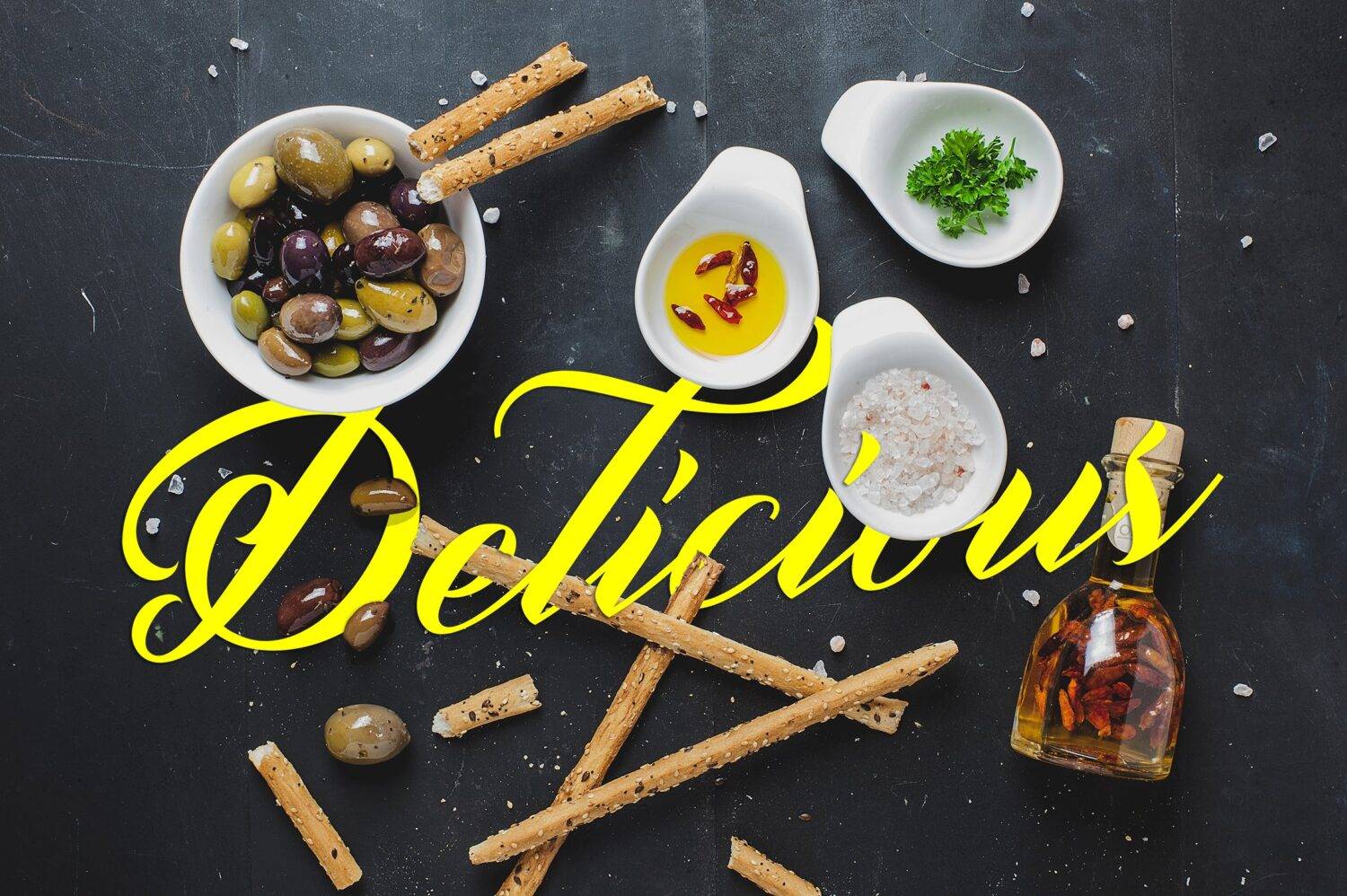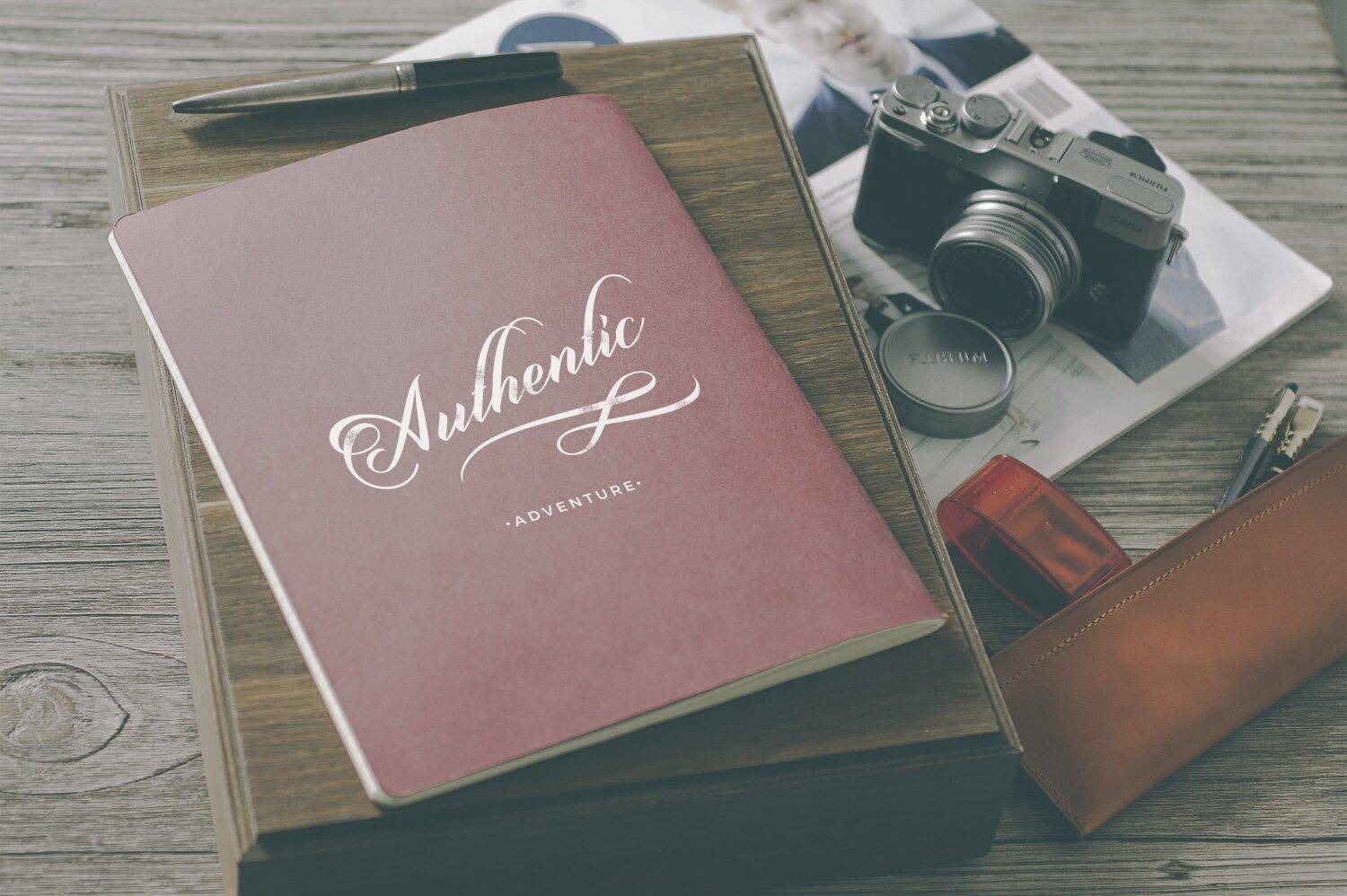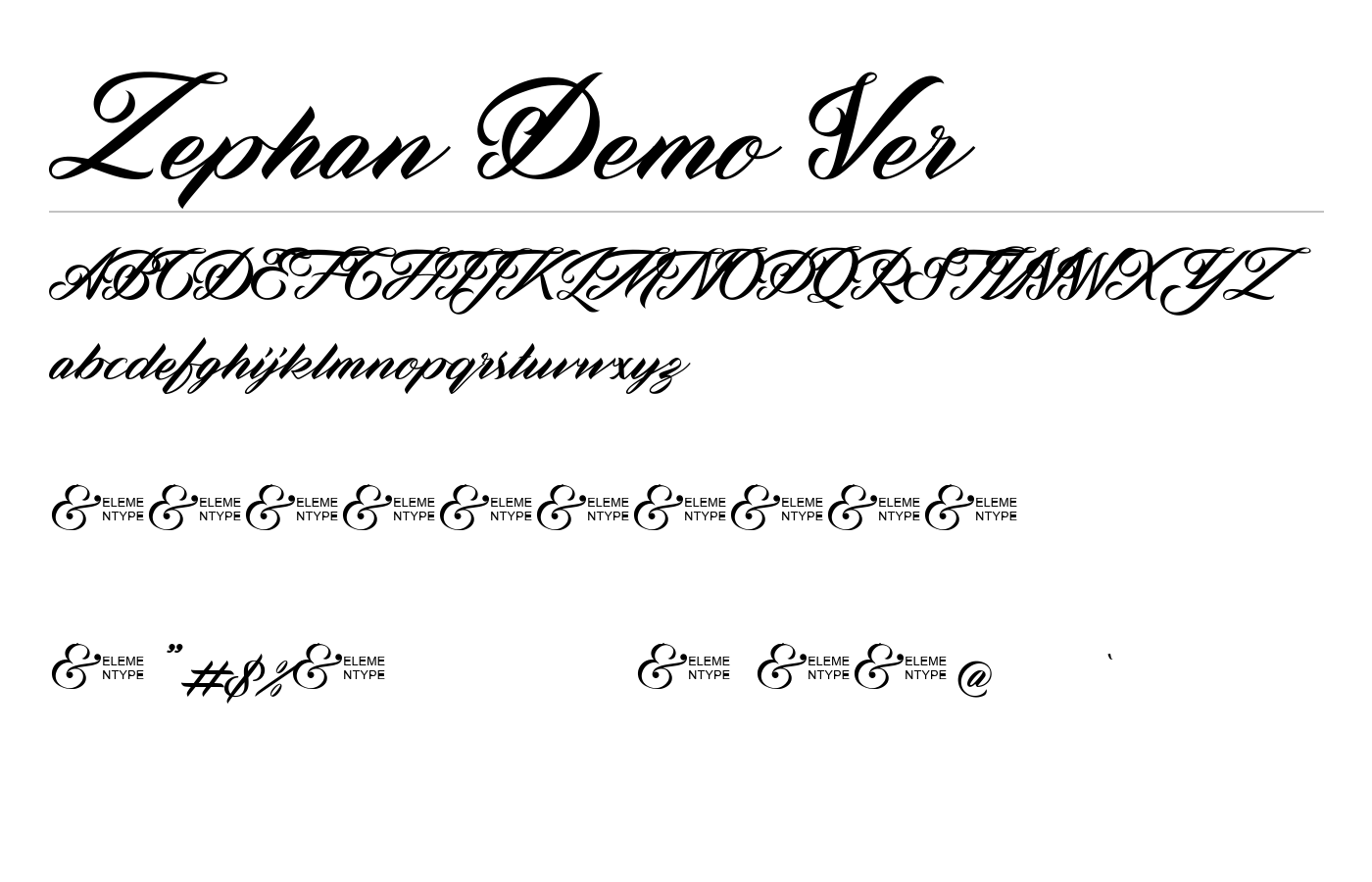
Zephan Modern Script Demo is an elegant, flowing script font characterized by its graceful, high-contrast strokes and delicate swashes, offering a refined and classic handwritten feel. Its stylish uppercase letters and smoothly connected lowercase forms make it perfect for luxury branding, wedding invitations, and sophisticated editorial designs where a sense of elegance and personality is desired. This font works beautifully in logos and headlines, bringing a timeless, artistic touch to your creative projects.
Zephan Modern Script Demo Font
About Zephan Modern Script Demo Font